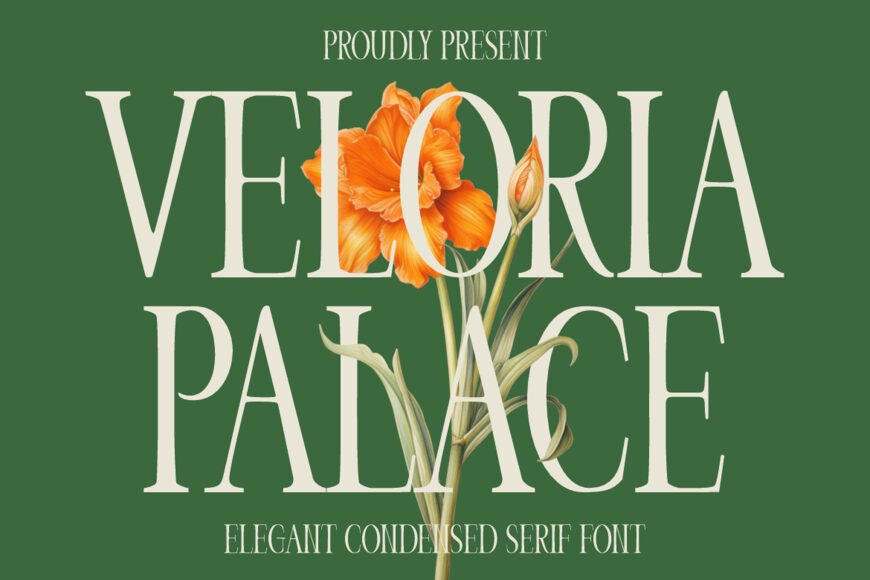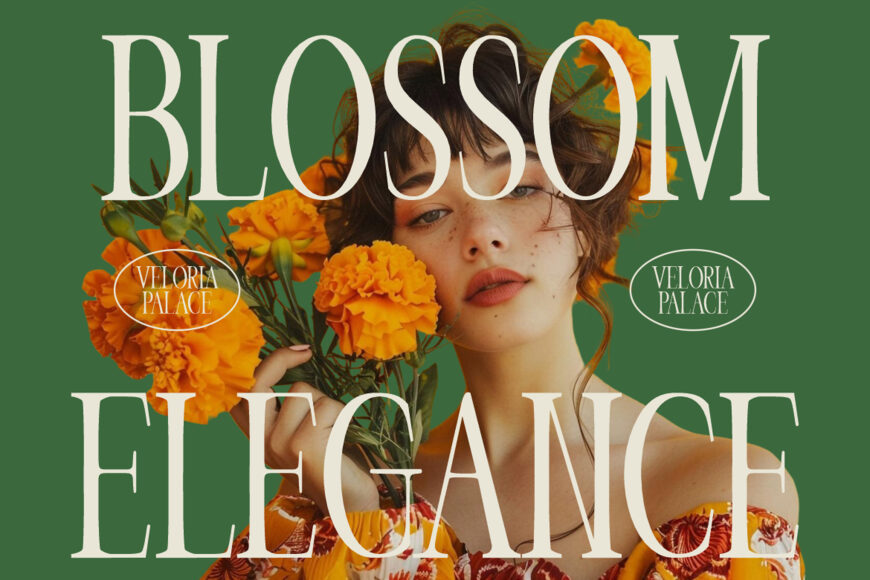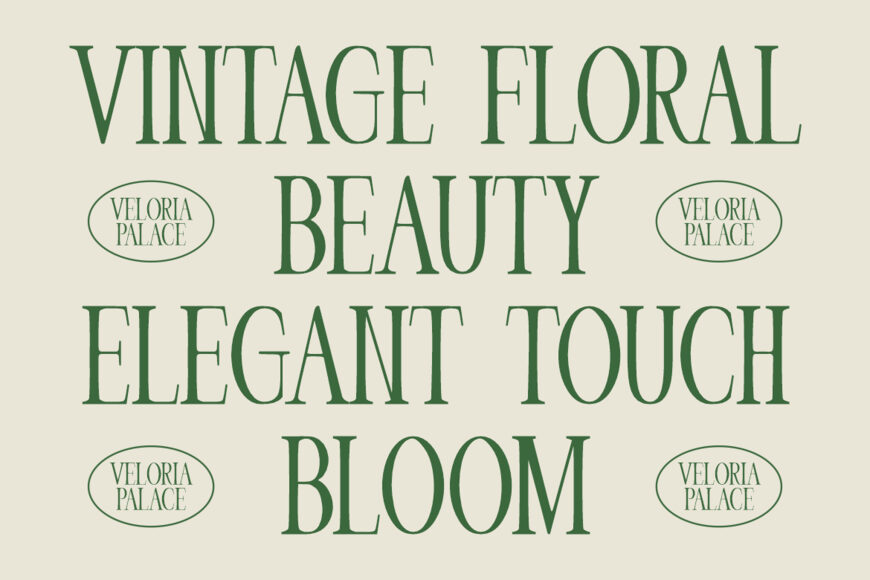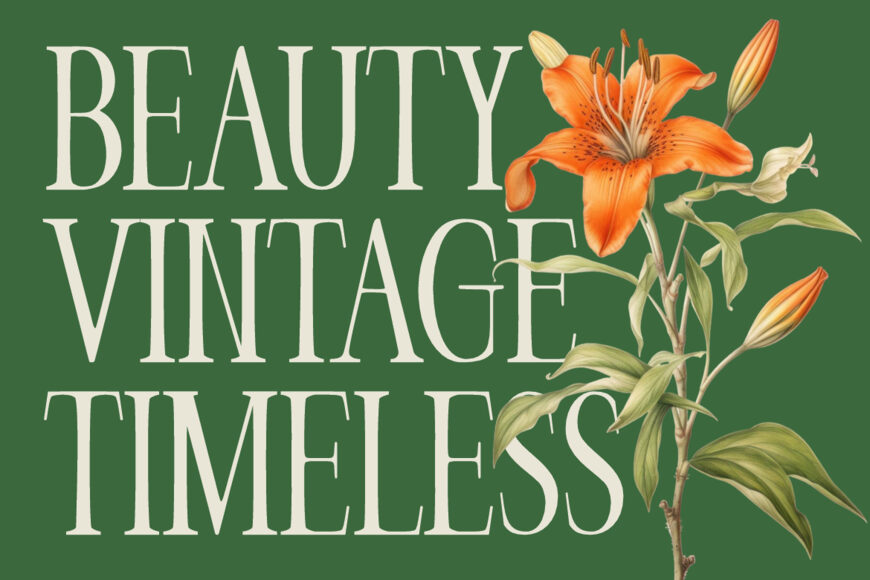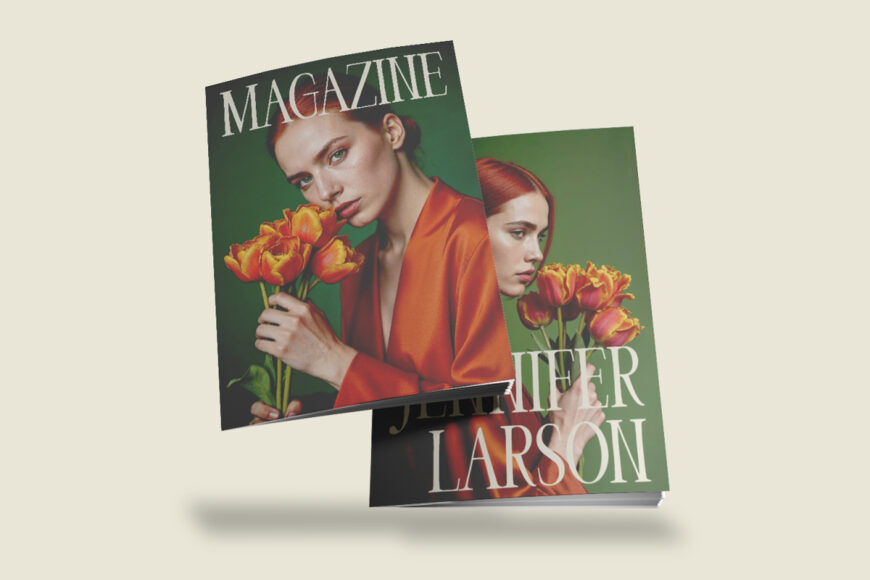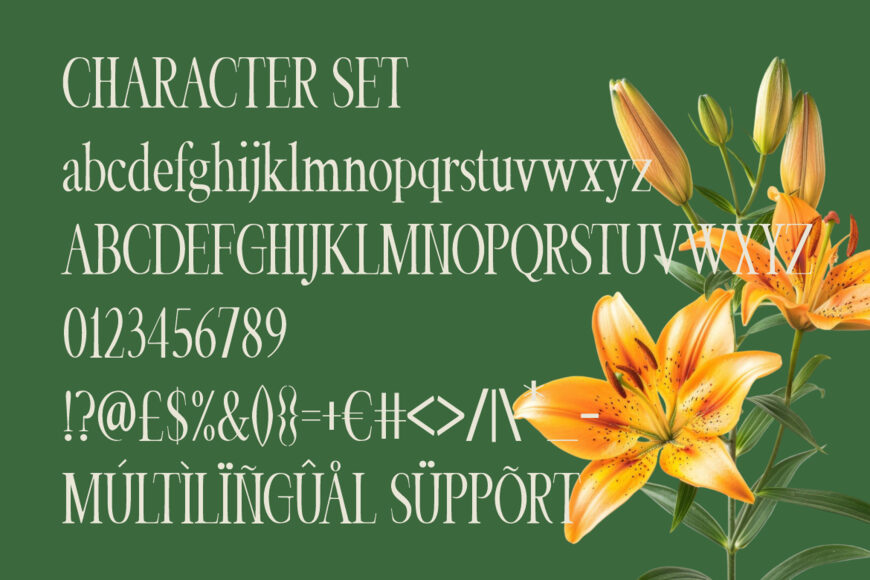
Veloria Palace is a classic serif typeface with a tall, narrow, and graceful design that adds sophistication to any visual identity. Its slim proportions, high contrast, and gentle curves create an elegant, vintage-inspired character while maintaining clear readability.
Ideal for beauty logos, magazine titles, floral branding, boutique campaigns, and palace-themed designs, it also suits posters, editorial covers, websites, and quote graphics. Use it for skincare packaging, salon menus, spa materials, perfume bottles, candles, invitations, wedding stationery, greeting cards, book covers, and advertisements.